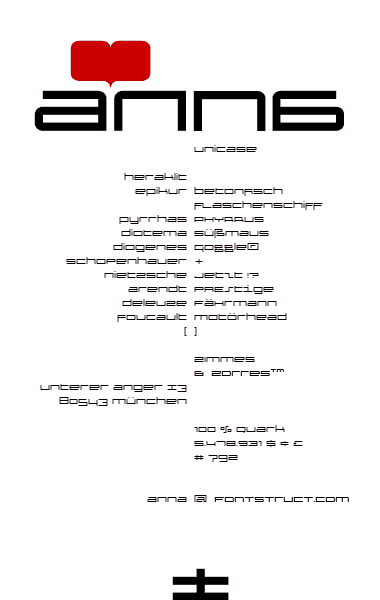
ANNA became my first fonstruction after i discovered FONTSTRUCT.
I always wanted to do this one!
The concept is trivial but to me it's a natural flow ...
I'm going to add some ligatures and alternates to make the thing a bitsy more arty
There are so many great touches in this font. The drop down 'f', the alternate G and g and s, the ®, the heart, the es-zett, the *, etc., etc. The whole thing is quite lovely. The perfect negative space between the an of anna and the heart was a masterful touch.